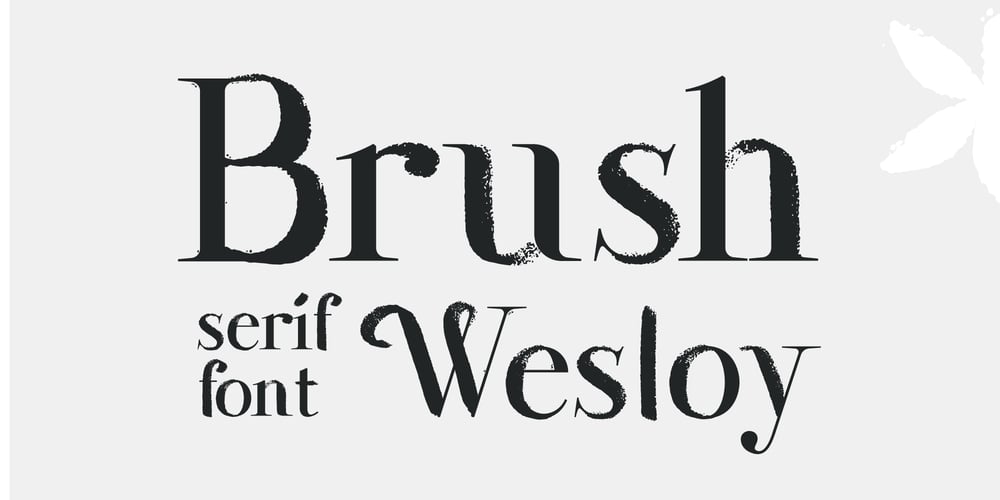
Wesloy Font Family was designed by Roman Korolev and published by Kaer. Wesloy contains 1 styles and family package options. Introducing my new brush serif typeface Wesloy. Vintage font with unique dry strokes with rough edges decoration elements. Perfect to use in any fashion labels, glamour posters, luxury identity, etc.What you will get:* Regular style* Uppercase and lowercase glyphs* Numbers and symbols* Multilingual support* LigaturesPlease feel free to request to add characters you need: kaer.pro@gmail.comThank you!